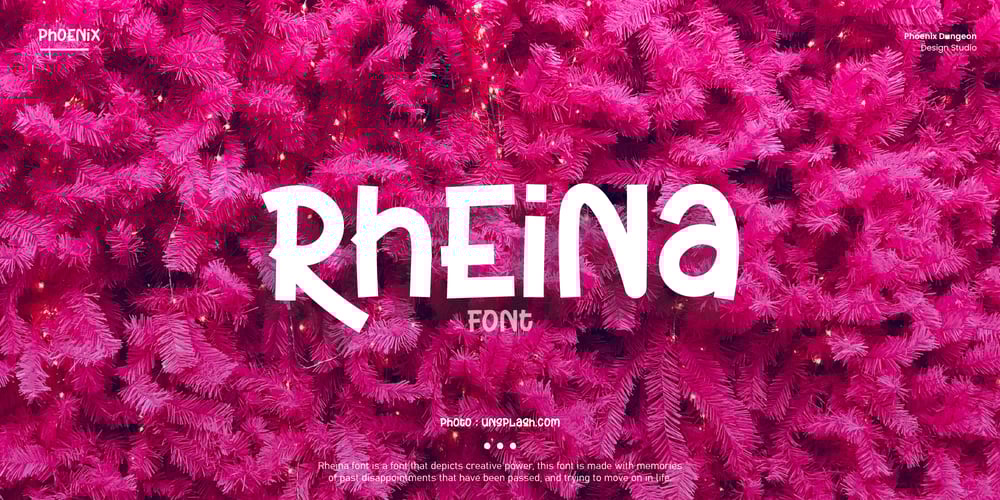
Rheina Font Family was designed by Alif Naufal Muzakki and published by Phoenix Group. Rheina contains 1 styles and family package options. Rheina font is a font that depicts creative power, this font is made with memories of past disappointments that have been passed, and trying to move on in life.